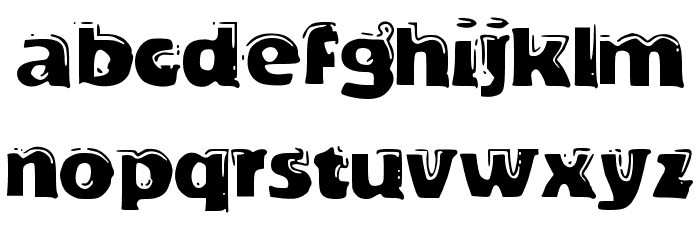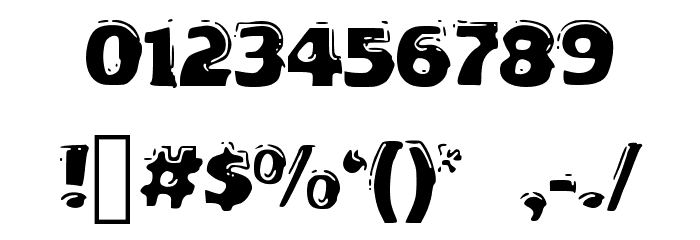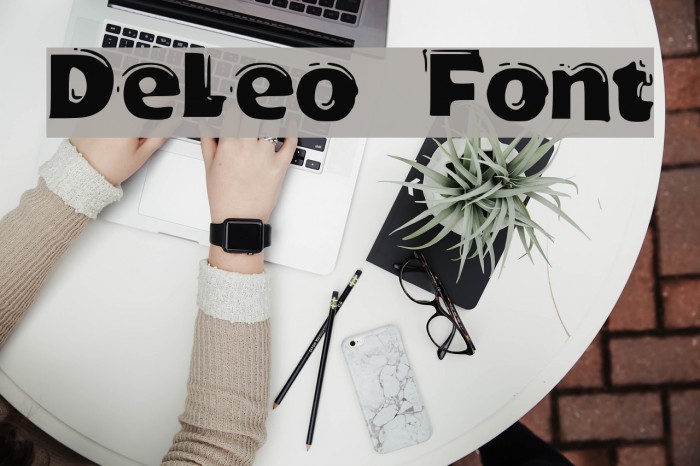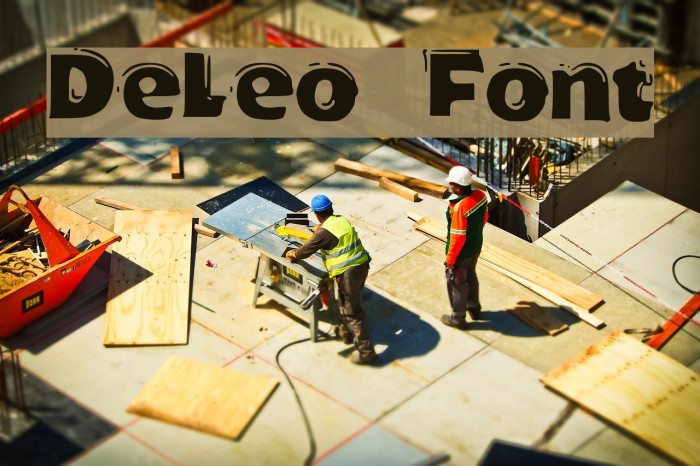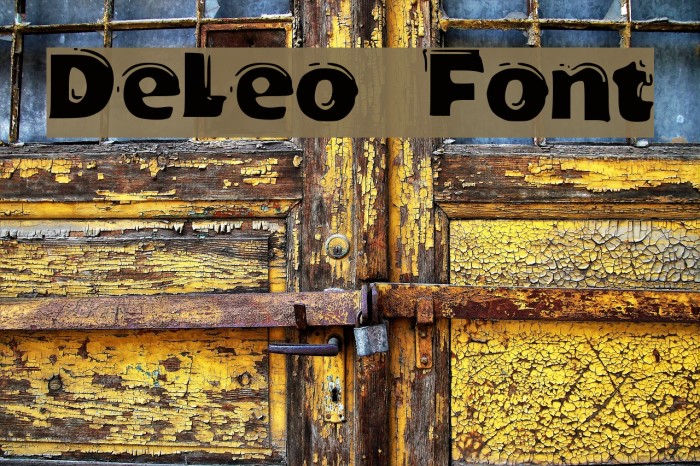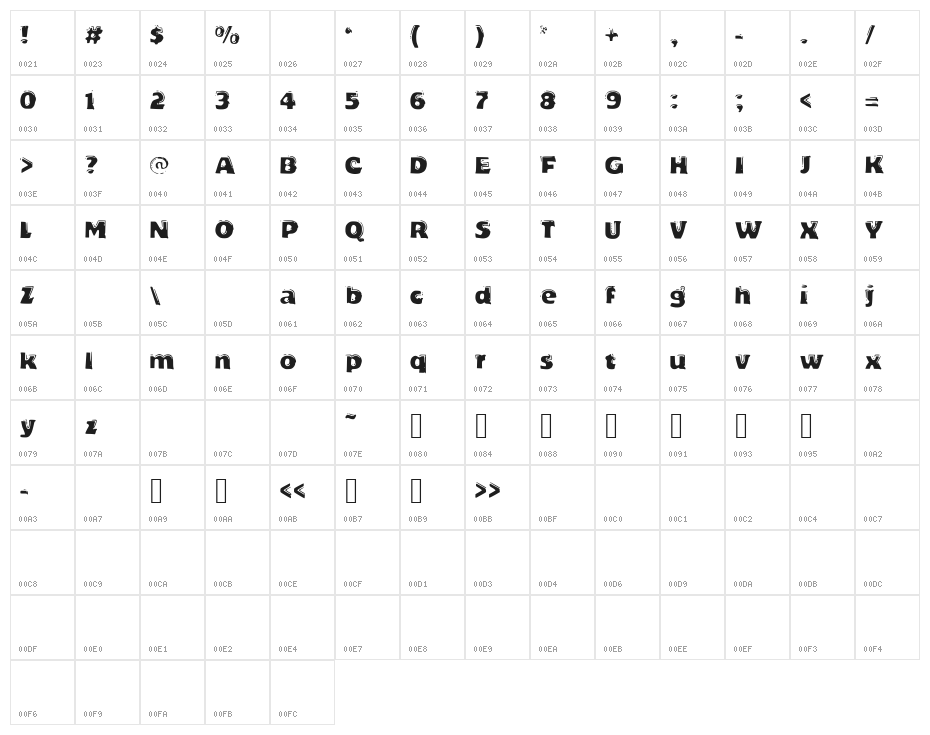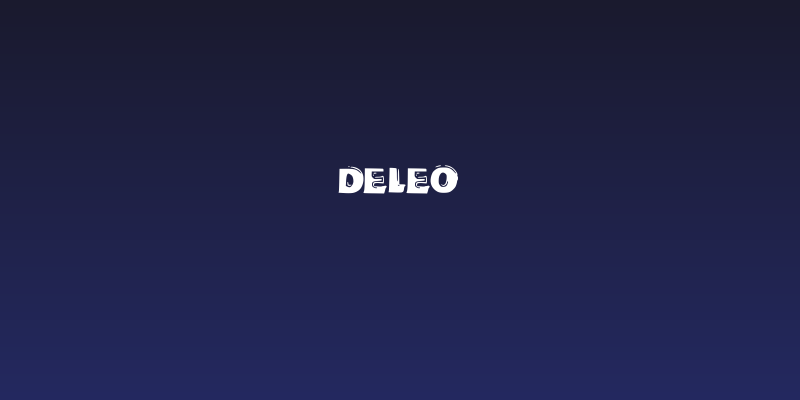
DeLeo Font
This font features a bold and playful design with a unique distressed texture that gives it a vintage and dynamic appearance. The characters are thick and robust, with irregular edges that create a sense of movement and energy. The uppercase and lowercase letters maintain a consistent style, while the numbers and special characters complement the overall aesthetic. This font's distinctive look makes it ideal for projects that require a bold statement or a retro feel.
A bold, distressed font with a vintage and playful style.
- Proposed Projects: Ideal for posters, logos, branding, and any design needing a bold, vintage touch.
- Overall Style: Vintage